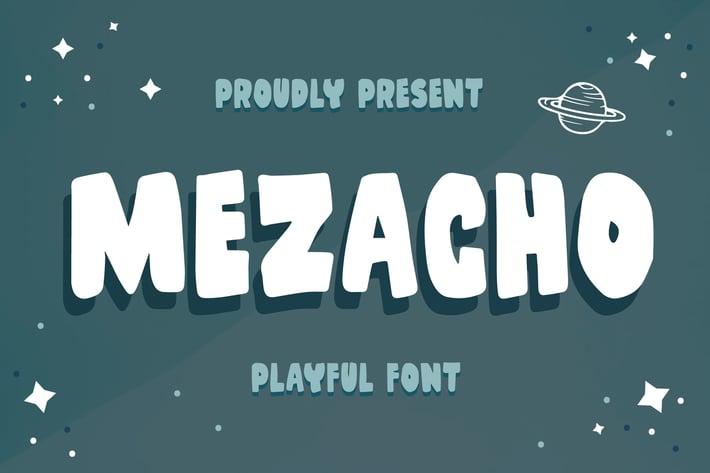
Mezacho - A Bold Playful Handmade Font
So beautiful on invitation like greeting cards, branding materials, business cards, quotes, posters, and more!